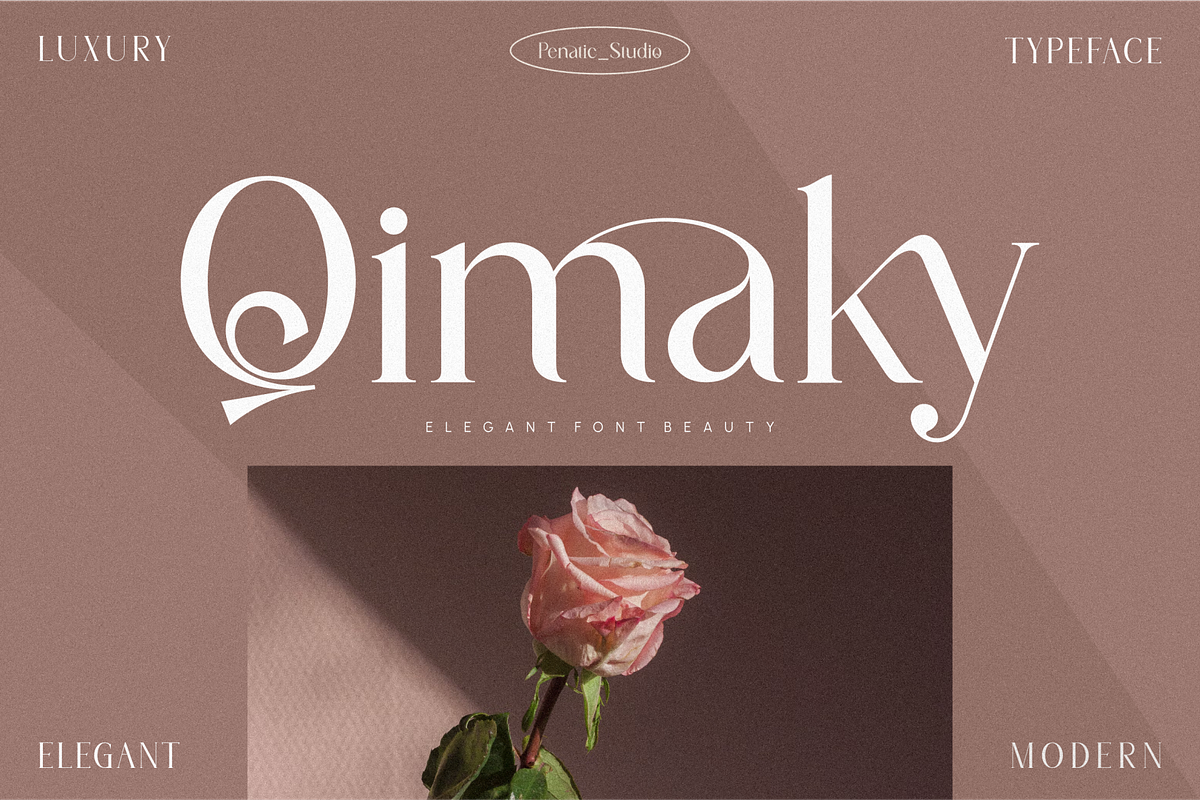
The Qimaky - Elegant Font Beauty Free Download is a sophisticated and stylish typeface designed to add a touch of elegance and grace to your creative projects. With its smooth curves and refined letterforms, this font is perfect for luxury branding, wedding invitations, fashion magazines, and more. Its timeless beauty will elevate any design, making it an excellent choice for those seeking a refined and high-end aesthetic.
Qimaky - Elegant Font Beauty Free Download is ideal for designers who want to incorporate elegance and beauty into their work. Whether you're working on invitations, branding, or editorial design, this font will add a premium touch to your projects. Download this beautiful font today and enhance your creative designs with its graceful style!